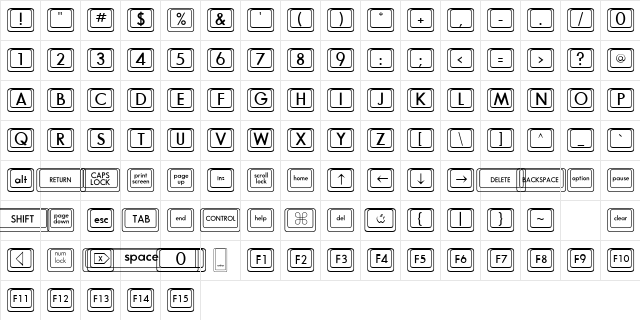
Keycaps 1 Normal
Design Context for Keycaps 1
Keycaps 1 is a composed and adaptable typeface that performs quietly and consistently across a wide range of design contexts.
Pro Tip: Use Keycaps 1 in both headline and body roles to test its range before committing to a single application.